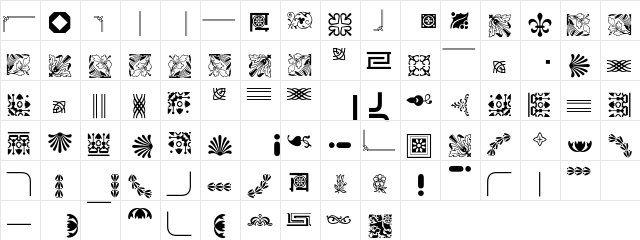
Borders Ornaments P04 Regular
Design Context for Borders Ornaments P04 Typeface
Borders Ornaments P04 is built around its visual character rather than neutral utility — its distinctive forms are designed to make an impression at display sizes.
Font Pairing: Pair with a clean neutral sans-serif for body copy to let Borders Ornaments P04's character lead without overwhelming the composition.
Pro Tip: Use Borders Ornaments P04 exclusively at display sizes — it was designed to be seen, not read at length. Let a neutral companion handle body copy.